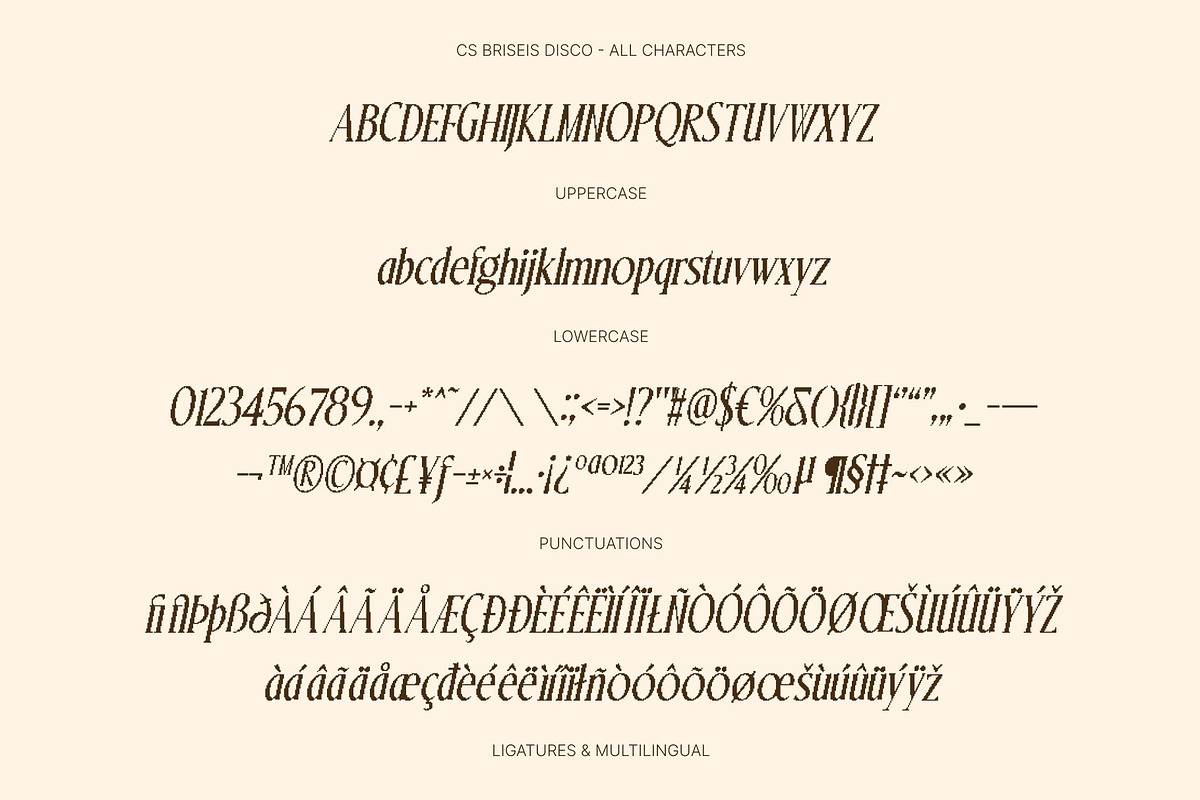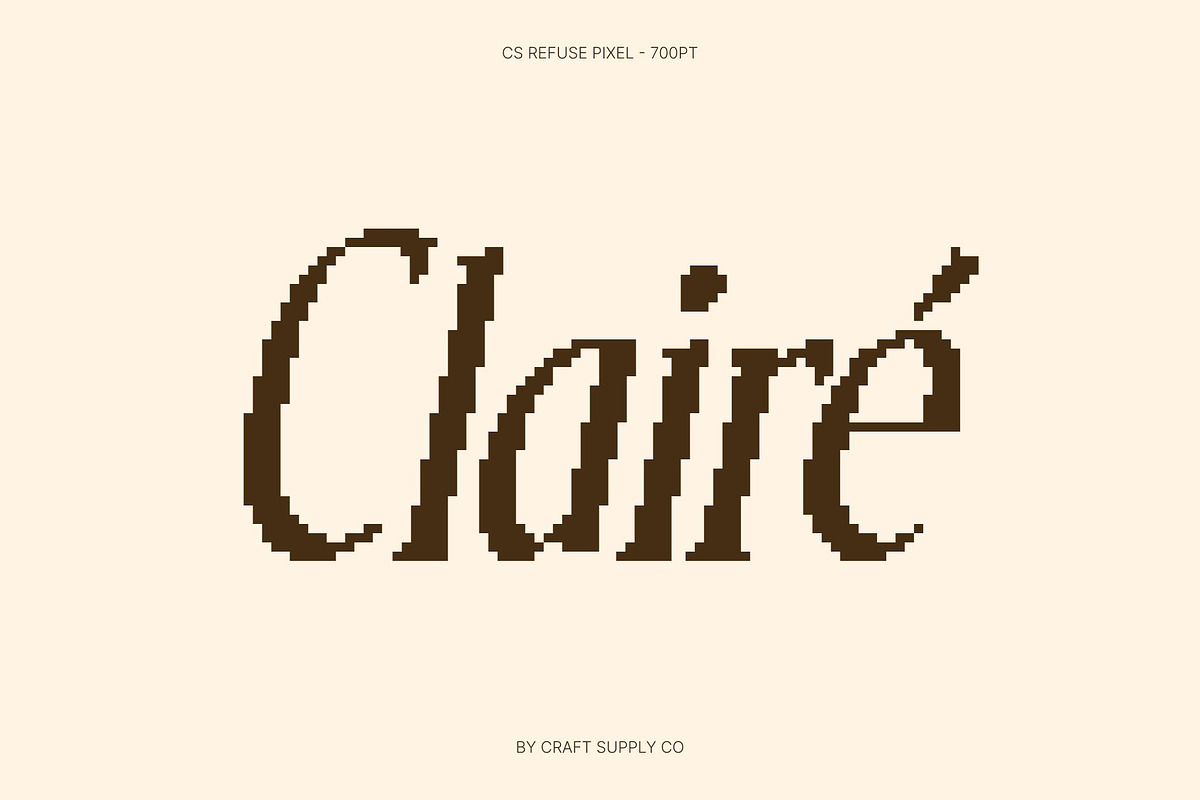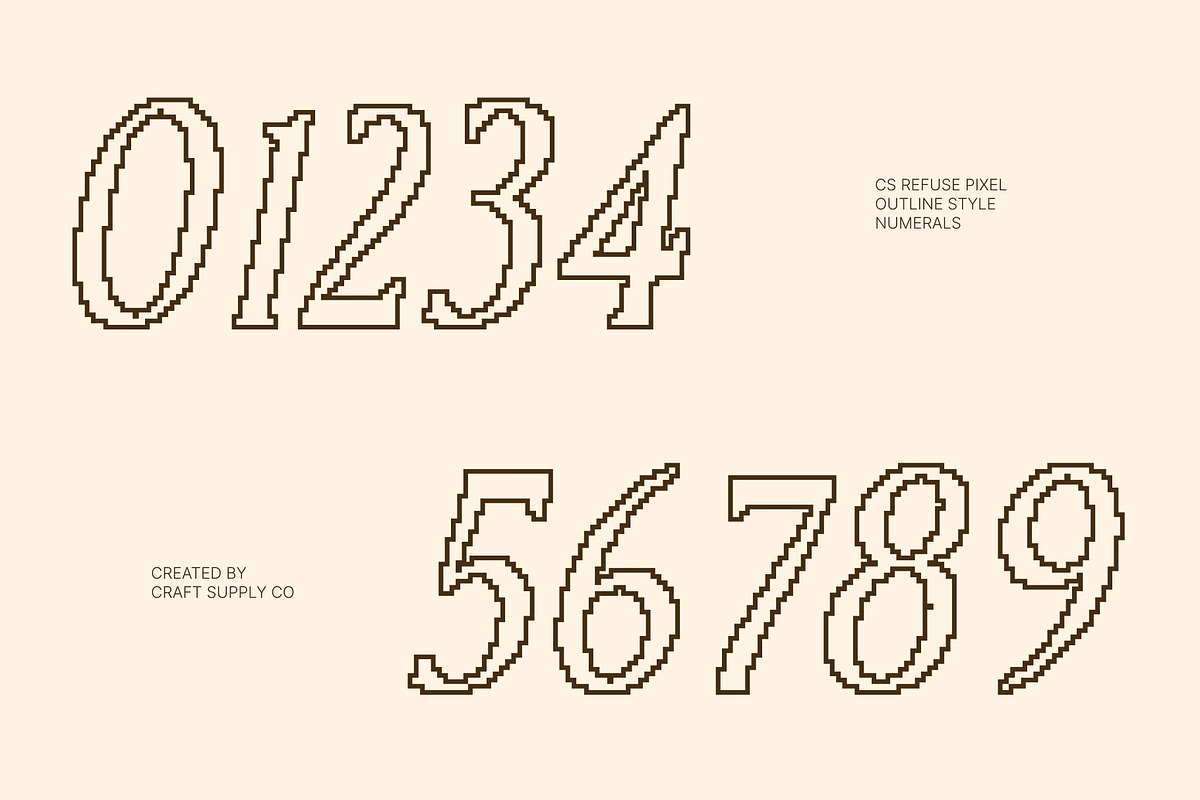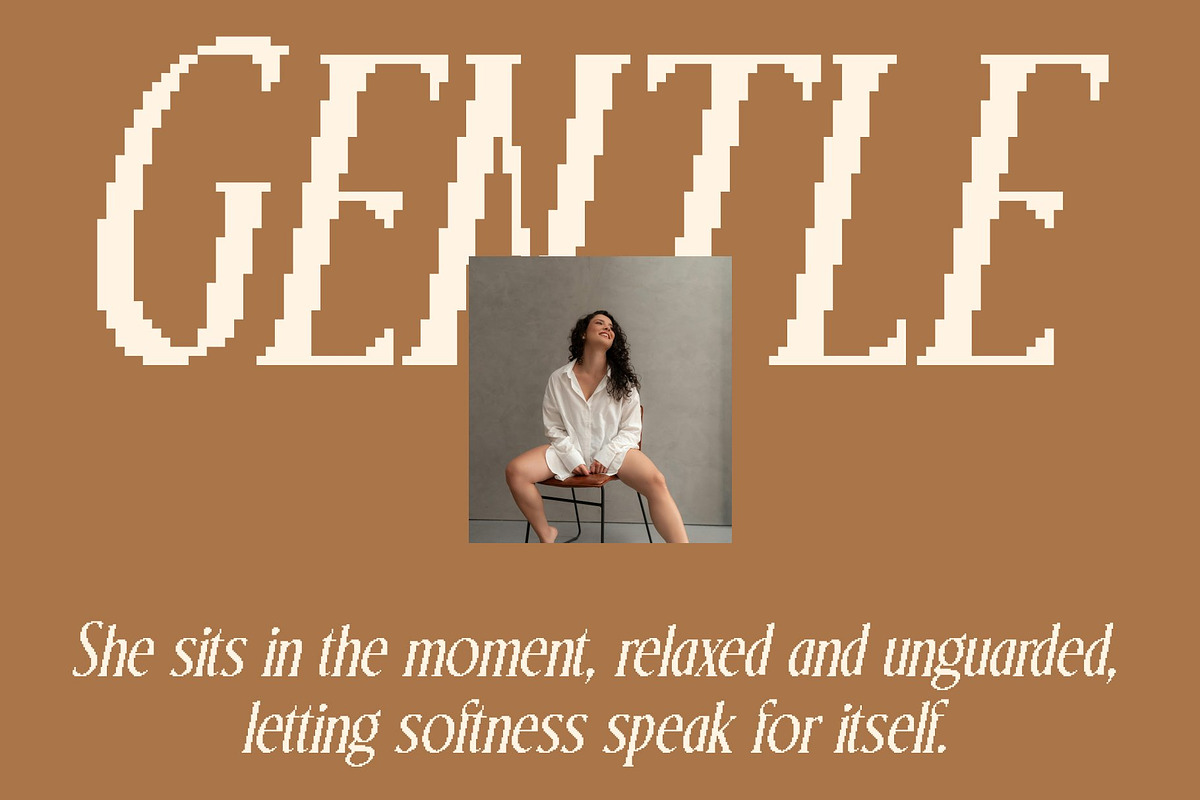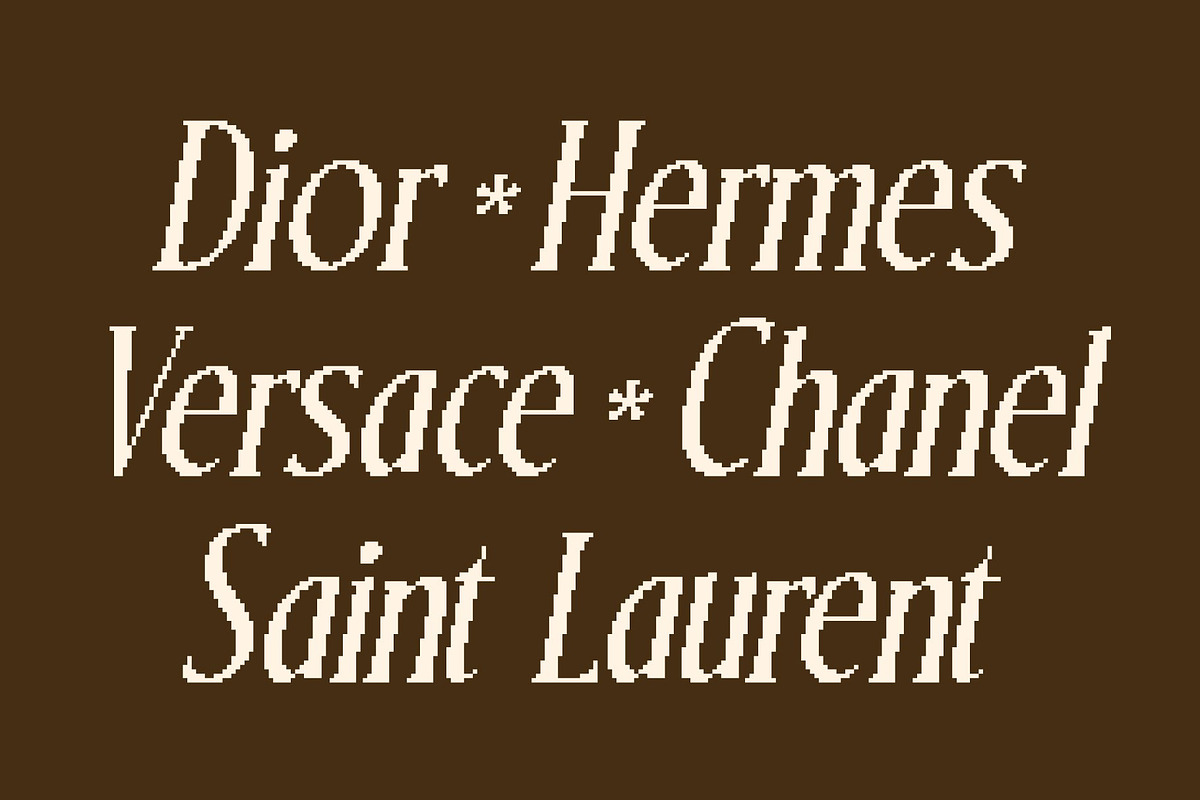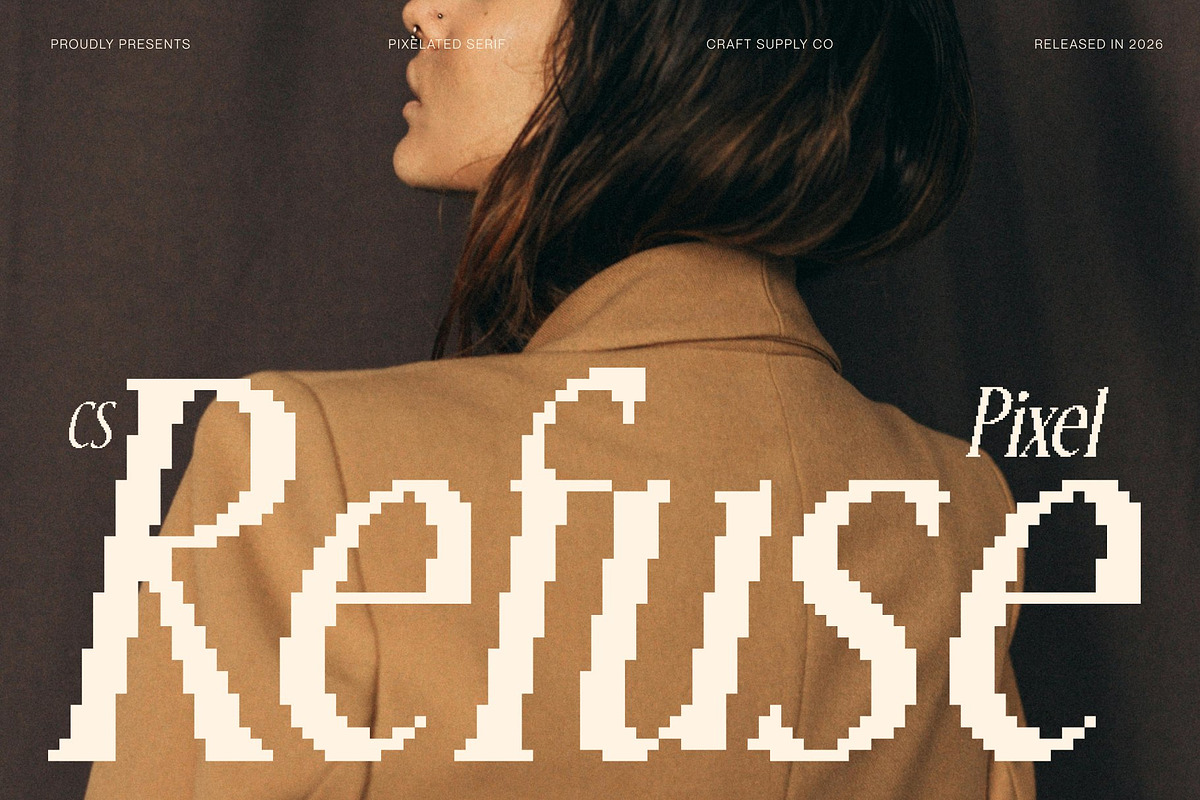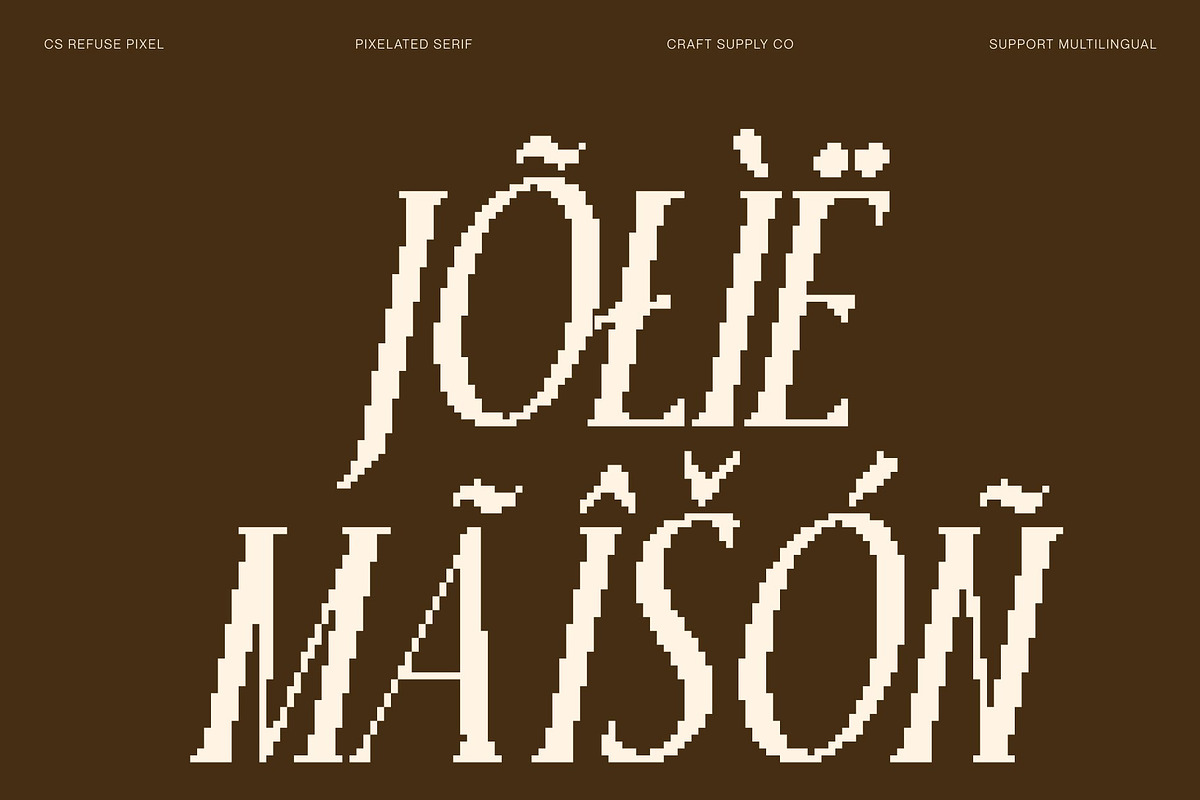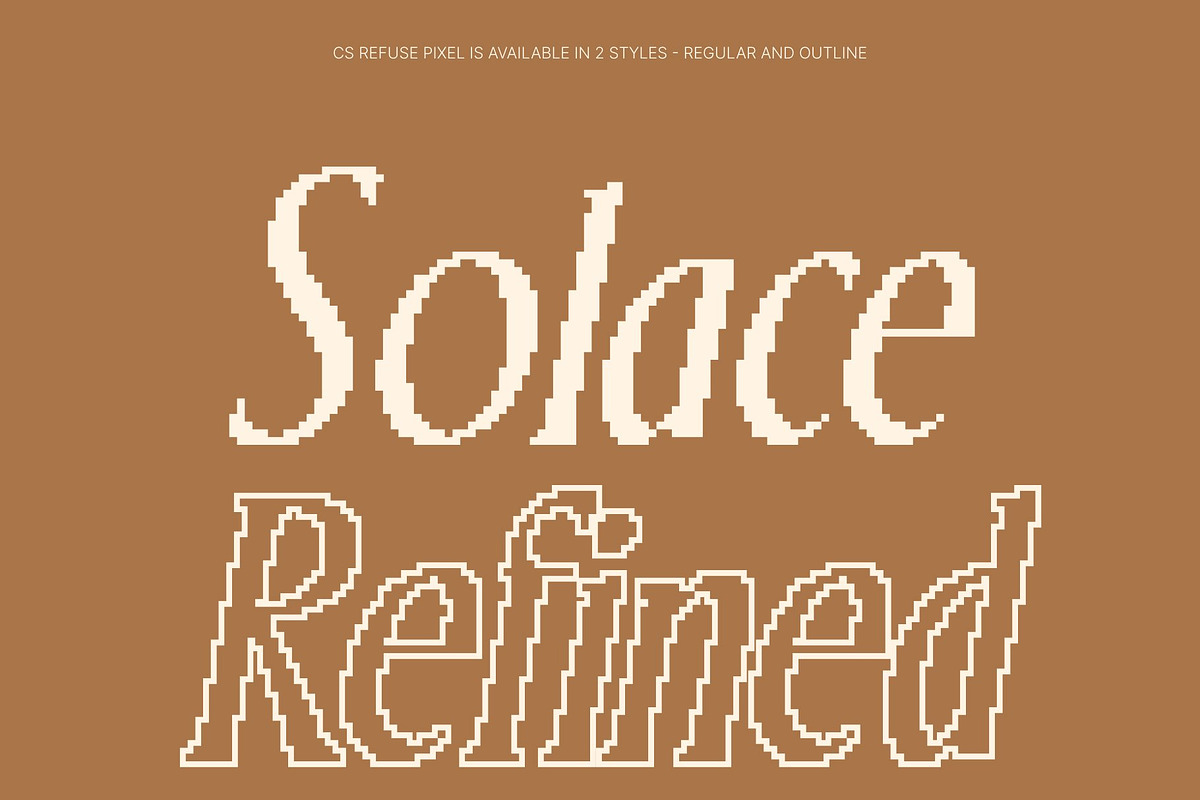
CS Refuse Pixel
CS Refuse Pixel – Contemporary with Refined Simplicity
Serif Font with Sleek, High-End Character This is a refined serif font that combines contemporary elegance with a distinctive pixel construction. Designed to deliver a sleek and high-end visual impression, it features elegant curves and elongated details reimagined through a digital, pixel-based structure. The result is a sophisticated silhouette that feels modern, polished, and subtly nostalgic perfect for designs that blend luxury with technology.
Elongated Details with Refined Pixel Curves The elongated letterforms create a graceful rhythm, while the pixel grid introduces a sharp, structured texture that enhances visual interest. Carefully crafted curves soften the digital geometry, balancing precision with warmth. This fusion of refined serif elegance and pixel styling creates a calm yet confident appearance that feels both luxurious and visually distinctive.
Clean Simplicity with a Digital Professional Personality Built on clarity and balance, this font maintains excellent readability while adding a unique digital character. Its minimalist approach keeps layouts clean and professional, while the pixel treatment prevents the design from feeling ordinary or mechanical. This makes the font ideal for projects that require sophistication with a modern-tech or old-technology edge.
Versatile for Headlines, Branding, and Retro-Modern Packaging Designed for broad creative flexibility, this font works beautifully for headlines, branding, posters, product packaging, editorial layouts, and visual identities. Its pixel style makes it especially eye-catching in digital media, tech branding, futuristic visuals, and retro-inspired designs.
- CS Refuse Pixel Regular
- CS Refuse Pixel Outline